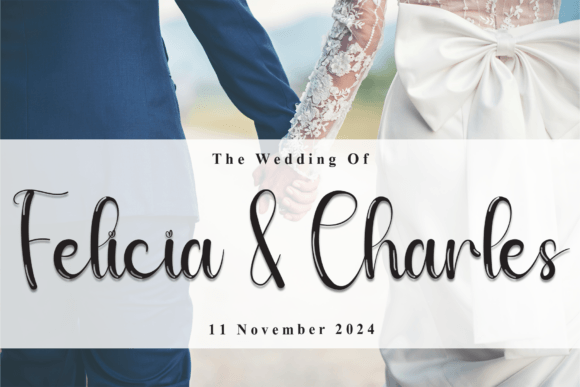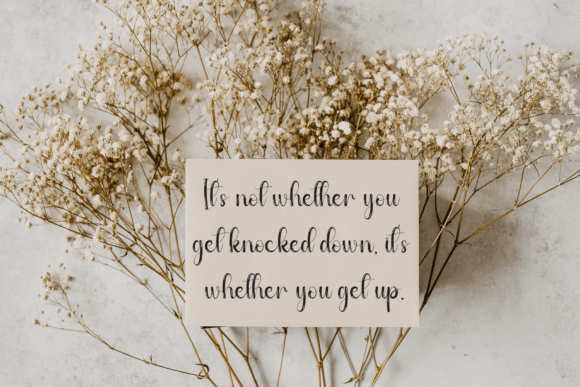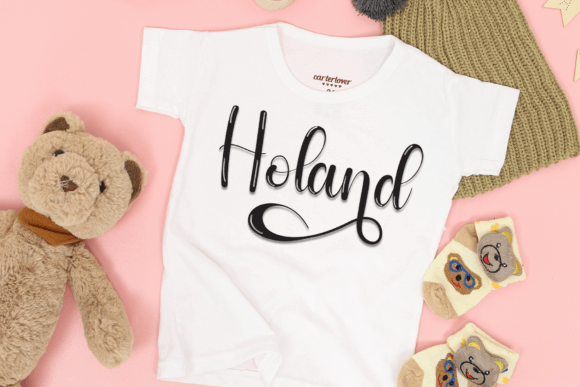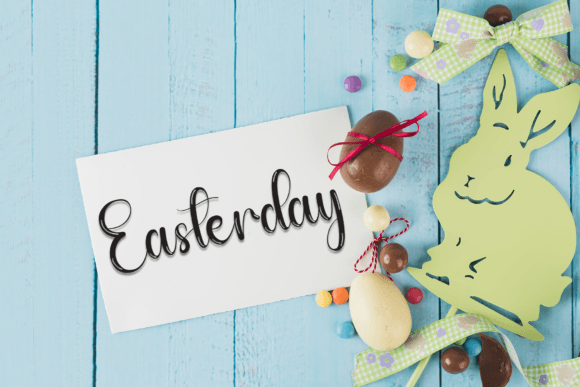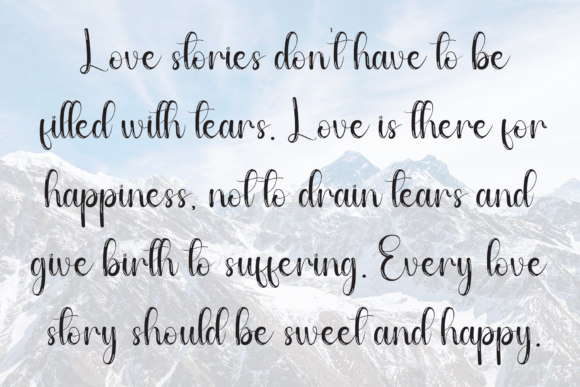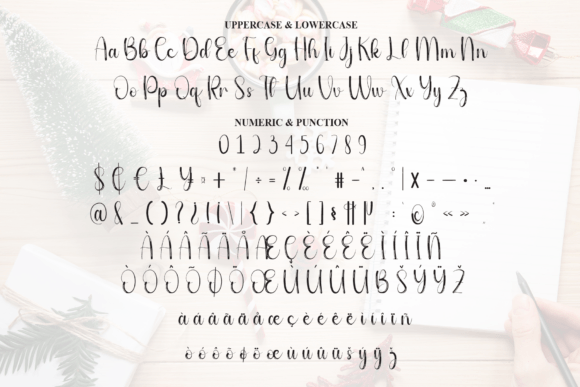
Christmas Daily Font: Spread Cheer with this Charming Handwritten Display Font
Are you looking for a font that embodies the spirit of joy and playfulness? Look no further than the Christmas Daily Font, a delightful handwritten display font that is sure to bring a smile to your face. With its effortless sweetness and charming personality, this font is perfect for designers and crafters who want to add a touch of whimsy to their creative projects.
The Perfect Font for Festive Designs
Christmas Daily Font is designed to infuse fun into any design project. Whether you’re crafting intimate wedding invitations, designing whimsical cards, or creating festive holiday decor, this font is sure to bring a delightful touch to your work. Its playful charm and lively personality make it the perfect choice for designers who want to create designs that exude cheer and liveliness.
What Makes Christmas Daily Font So Special?
So, what sets Christmas Daily Font apart from other fonts? Here are just a few reasons why this font is a must-have for designers and crafters:
- Handwritten with love: Christmas Daily Font is a handwritten display font that is full of personality. Its imperfect lines and curves give it a charming, homemade feel that is sure to capture the hearts of your audience.
- Effortless sweetness: This font exudes a sense of sweetness and innocence that is perfect for designers who want to create designs that are playful and fun.
- Playful charm: Christmas Daily Font has a playful charm that is sure to bring a smile to your face. Its lively personality makes it perfect for designers who want to create designs that are festive and fun.
- Versatile: This font is versatile and can be used for a wide range of design projects, from wedding invitations to holiday decor.
How to Use Christmas Daily Font in Your Designs
Christmas Daily Font is easy to use and can be incorporated into a wide range of design projects. Here are just a few ideas to get you started:
- Wedding invitations: Use Christmas Daily Font to create intimate and playful wedding invitations that will set the tone for a joyful and festive celebration.
- Holiday decor: Add a touch of whimsy to your holiday decor with Christmas Daily Font. Use it to create festive signs, banners, and decorations that will bring cheer to your home or office.
- Cards and gift tags: Use Christmas Daily Font to create whimsical cards and gift tags that will add a personal touch to your gifts.
- Social media graphics: Use Christmas Daily Font to create festive social media graphics that will add a touch of fun and personality to your online presence.
Experience the Visual Joy of Christmas Daily Font
Christmas Daily Font is more than just a font – it’s an experience. With its charming personality and playful charm, this font is sure to bring a smile to your face and inspire your creativity. So why wait? Download Christmas Daily Font today and experience the visual joy it has to offer!
In conclusion, Christmas Daily Font is a must-have for designers and crafters who want to add a touch of whimsy and fun to their creative projects. With its effortless sweetness, playful charm, and versatile personality, this font is sure to bring cheer and liveliness to any design project. So go ahead, get creative, and spread some holiday cheer with Christmas Daily Font!